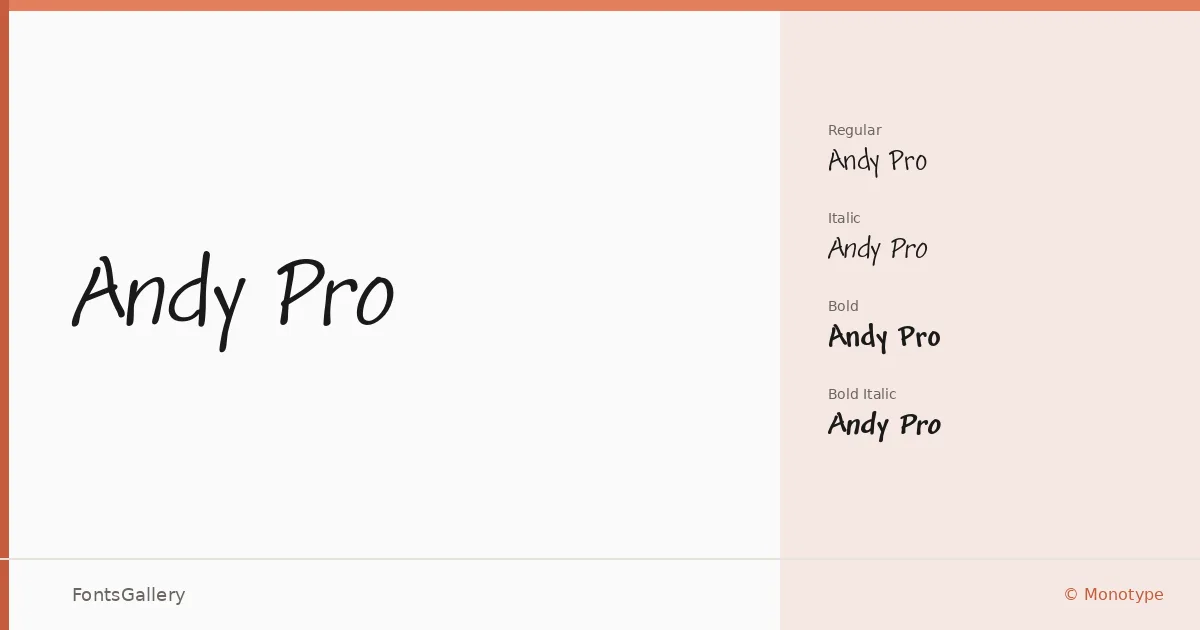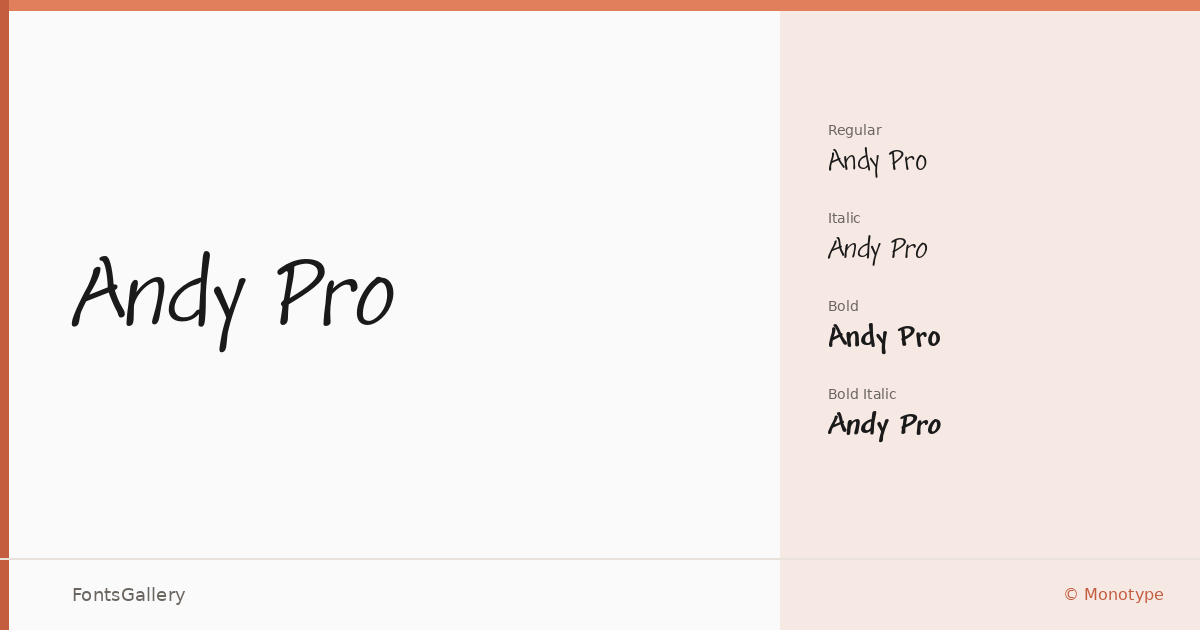
About Andy Pro Font
There is a looseness to this script that feels genuinely handwritten rather than mechanically constructed — the kind of casual, flowing letterforms that suggest a felt-tip pen moving with confidence across the page. It was designed by Steve Matteson for Monotype, and it carries the warmth of something personal without sacrificing legibility at smaller sizes. The Latin character set is clean and well-considered throughout.
This is a handwritten family with a mood that sits somewhere between playful and romantic — whimsical enough for children's work, but refined enough to feel at home on an invitation. The family ships in four OTF cuts: Regular, Italic, Bold, and Bold Italic. The Bold holds its character well, giving you weight without losing the casual rhythm that defines the design. Italics lean naturally with the script's existing angle, so the whole set feels cohesive rather than forced.
The obvious territory is greeting cards, invitation cards, and children's book titling, where the warmth of the letterforms does real work. It also translates well to branding and social media contexts where a handcrafted tone is the point. For pairing, the family sits comfortably alongside Helvetica or Asap when you need a neutral workhorse for body copy, and it holds its own next to more editorial choices like Canela, ABC Arizona, or Adobe Caslon Pro when the project calls for something with more typographic personality.